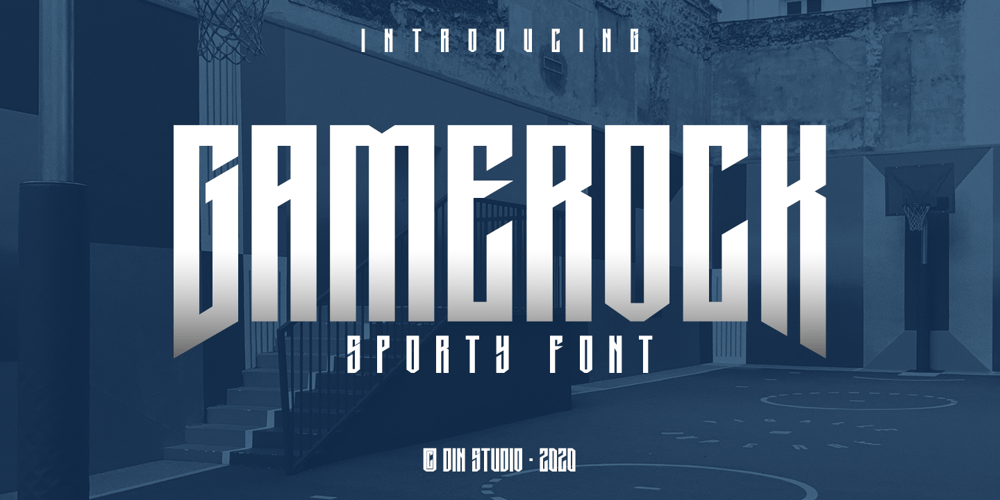
Gamerock Font Family was designed by Donis Miftahudin and published by Din Studio. Gamerock contains 1 styles and family package options. Gamerock is a classic sport font. Made for any professional project especially that related to the sports. Beside that, this font can be used for printing, branding and quotes.Features: Alternates PUA Encoded Multilingual Support Numerals and Punctuation Thank you for downloading premium fonts from Din Studio